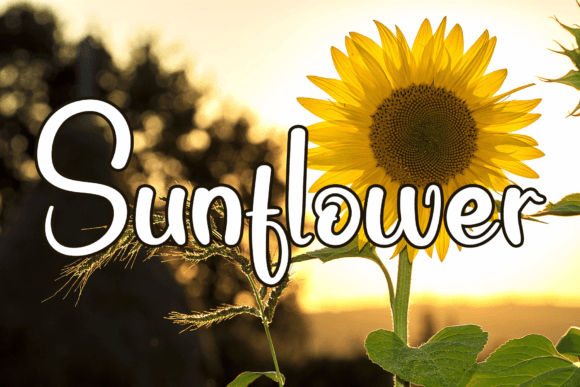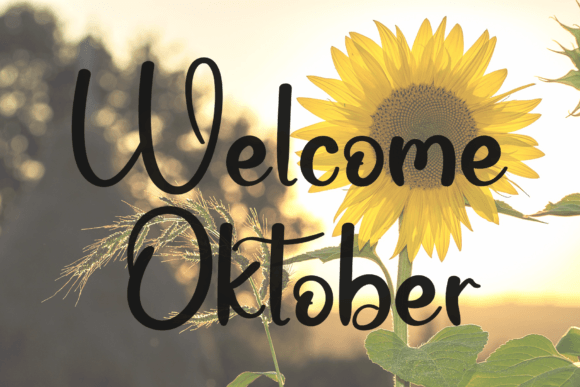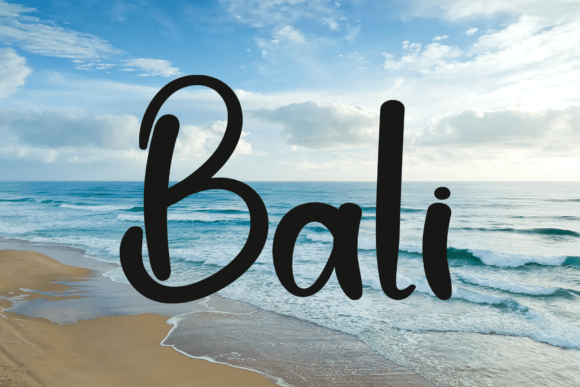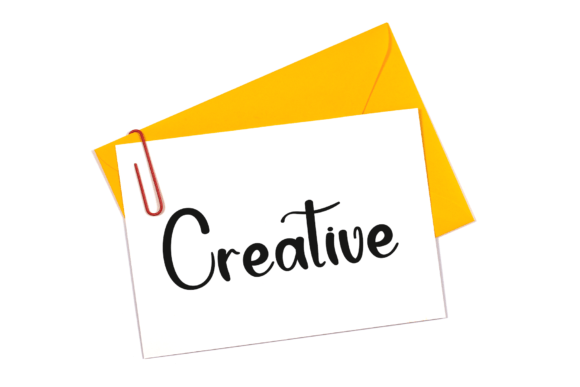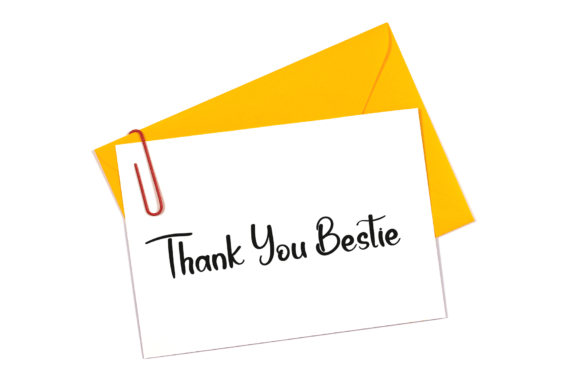
Hello Sunshine Font
About Hello Sunshine Font
Hello Sunshine is a sweet and beautiful handwritten font. Featuring characters that dance along the baseline, this font will add a luxury spark to any design project you wish to create!